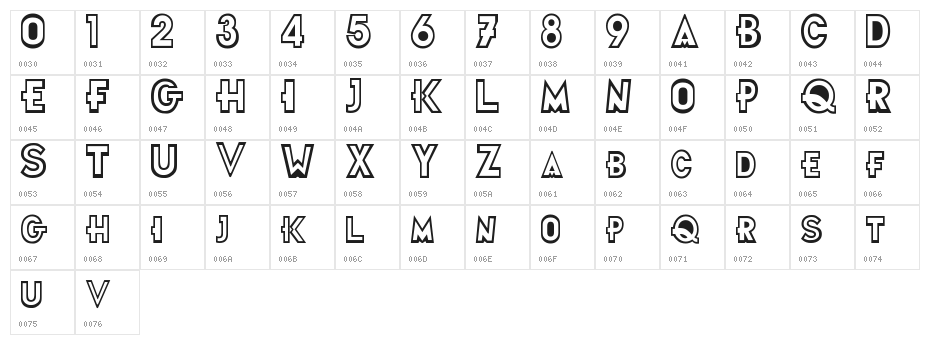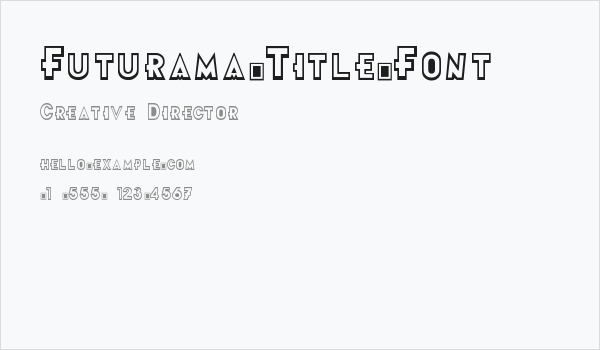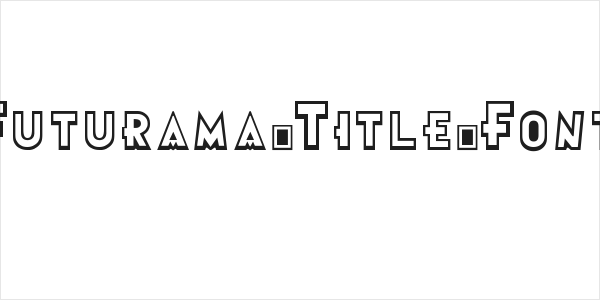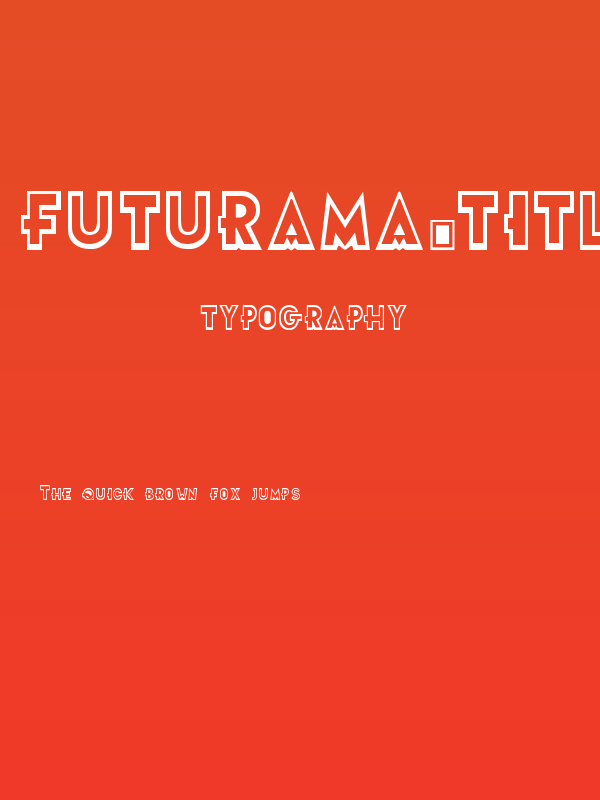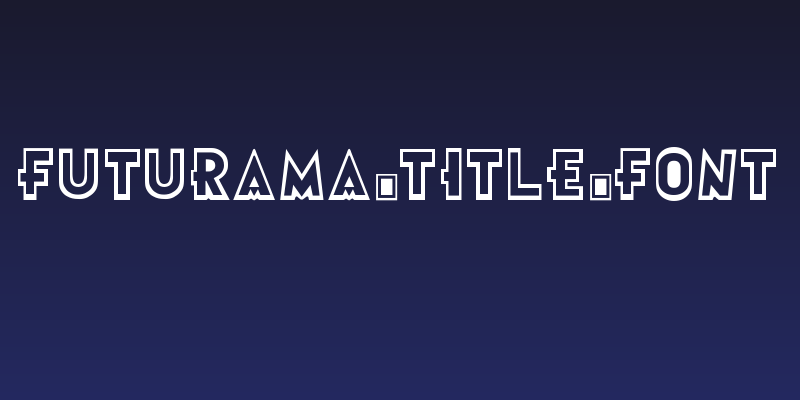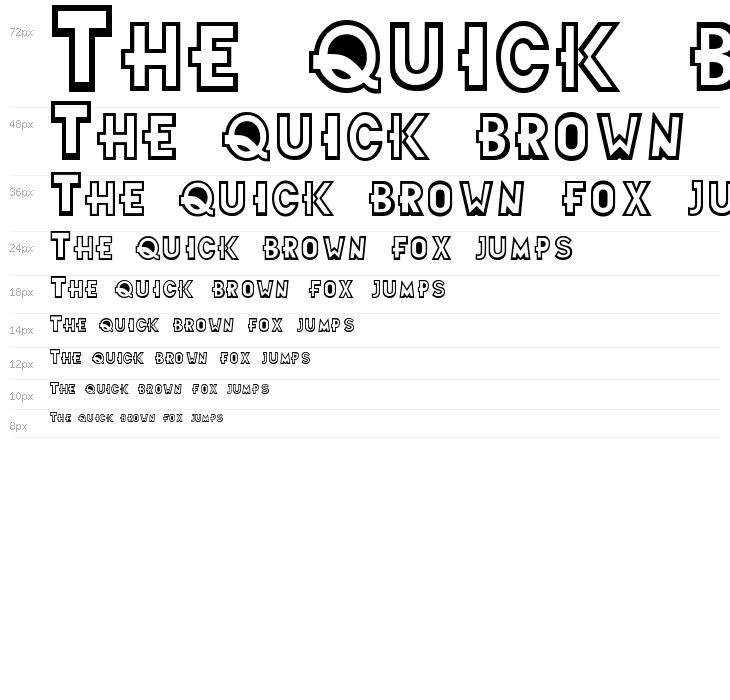
Futurama-Title-Font Font
Futurama-Title-Font Description
This font features a bold, geometric design with a futuristic flair. Each character is outlined, creating a striking contrast between the inner and outer spaces. The letters are uppercase and have a distinct, angular style, reminiscent of retro-futuristic aesthetics. The numbers follow the same bold, outlined pattern, ensuring consistency across the character set. This font is ideal for projects that require a standout, modern look with a touch of nostalgia.
| Proposed Projects | Ideal for sci-fi themed posters, video game titles, and branding that requires a modern, eye-catching look. |